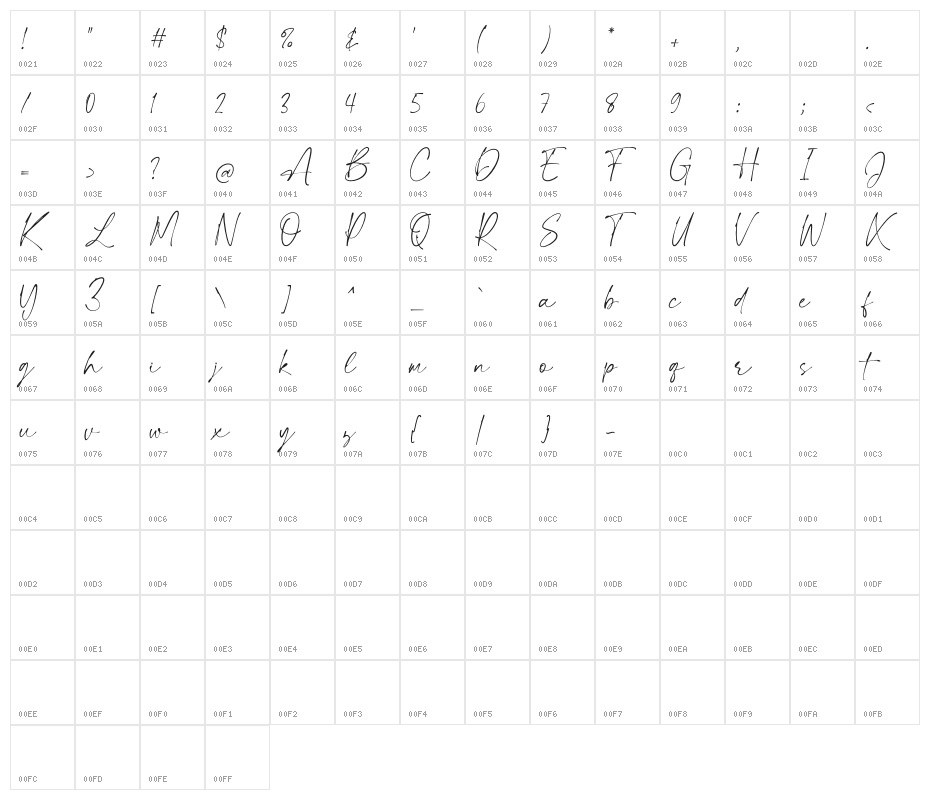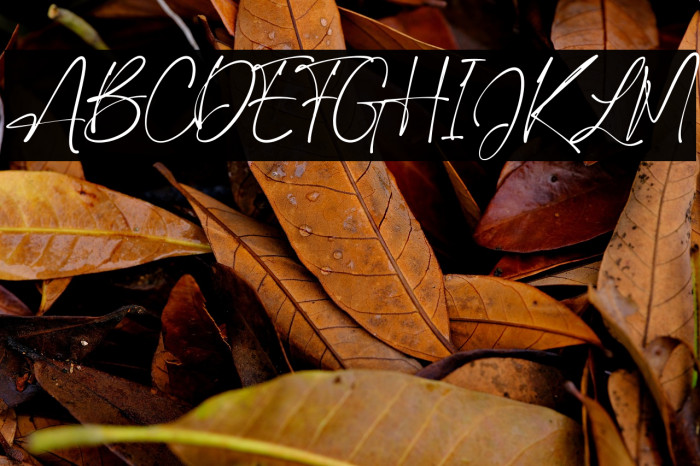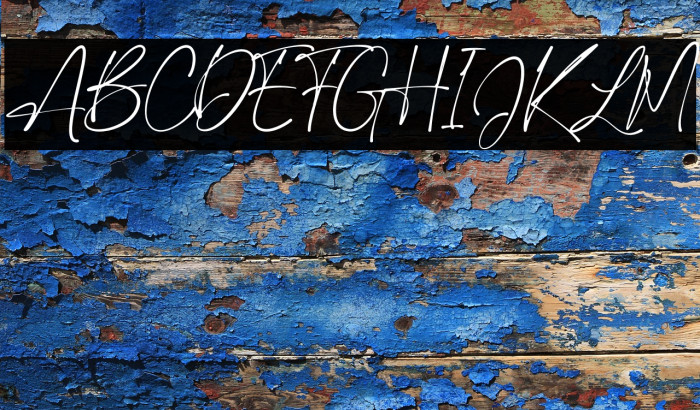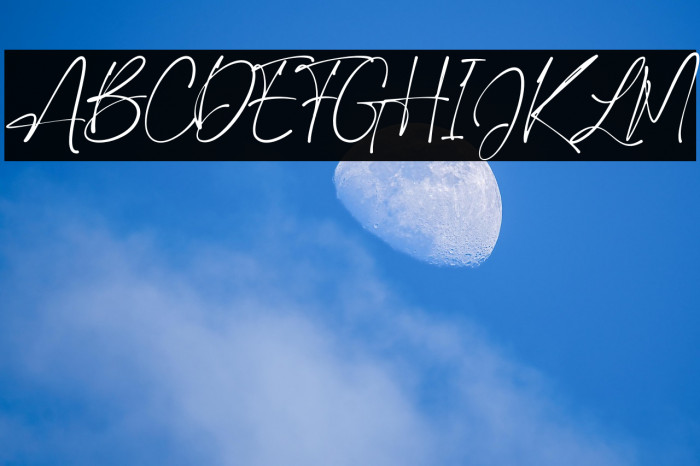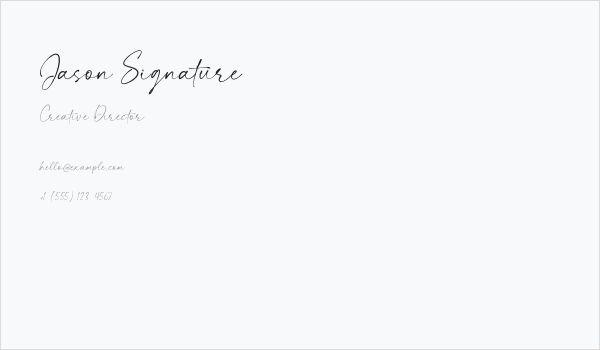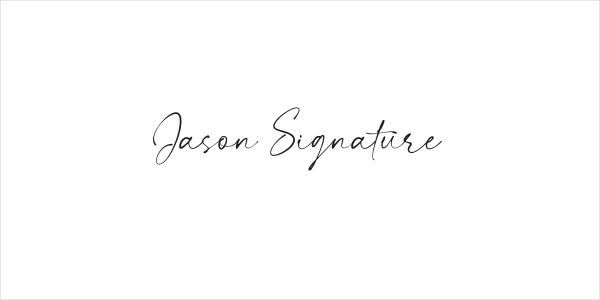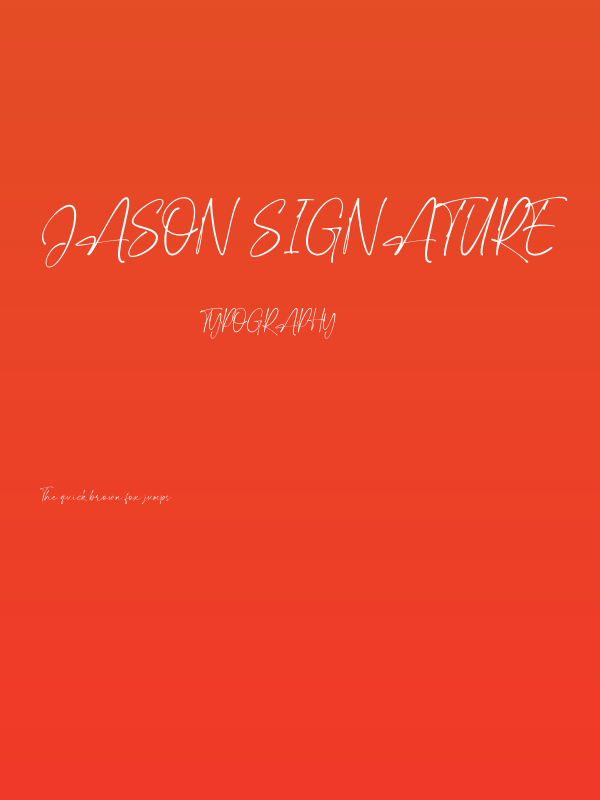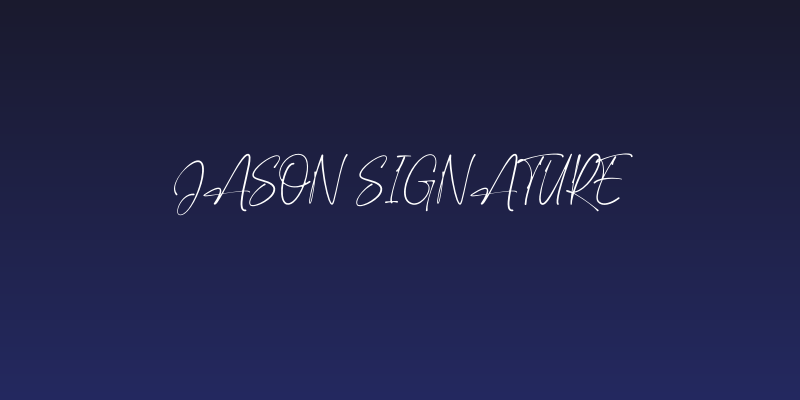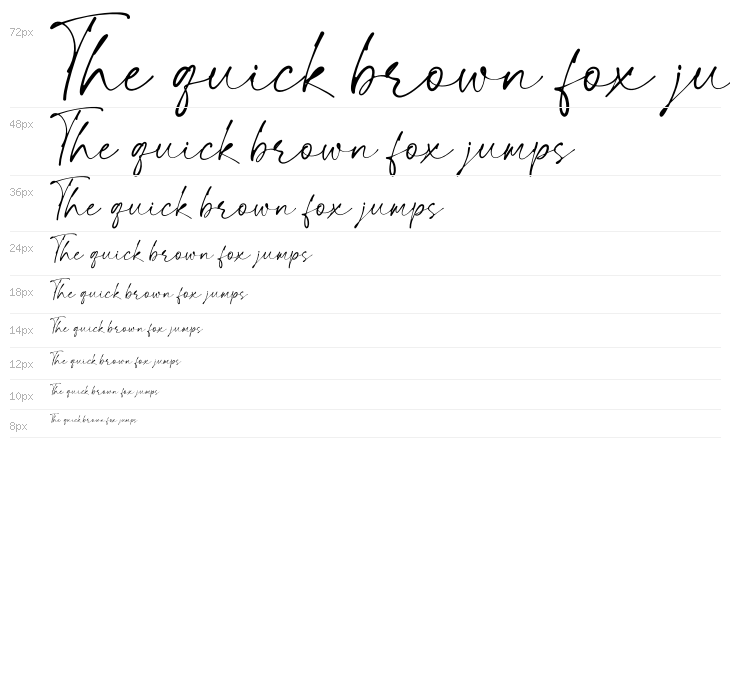
Jason Signature Font
Jason Signature Description
This font exudes a personal and artistic flair, reminiscent of a handwritten signature. The letters are fluid and connected, with a natural flow that mimics cursive handwriting. The uppercase letters are bold and expressive, while the lowercase letters maintain a consistent and elegant style. Numbers and special characters are crafted with the same attention to detail, ensuring a cohesive look across all elements. The strokes vary in thickness, adding a dynamic and lively feel to the text. This font is perfect for projects that require a touch of personality and sophistication.